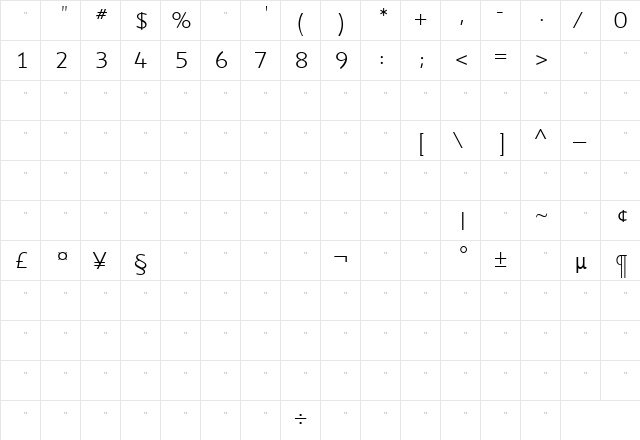
ShinnLightTab Regular
| Foundry | Red Rooster Typefounders |
Design Context for ShinnLightTab Typeface
ShinnLightTab offers clean, dependable letterforms without strong stylistic allegiance, making it a practical choice for designers who need flexibility. Its slender proportions lend an understated elegance to any composition.